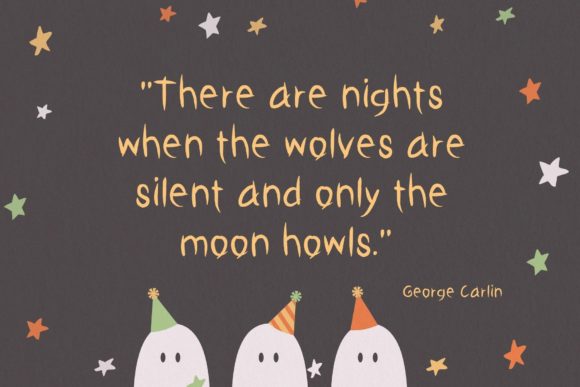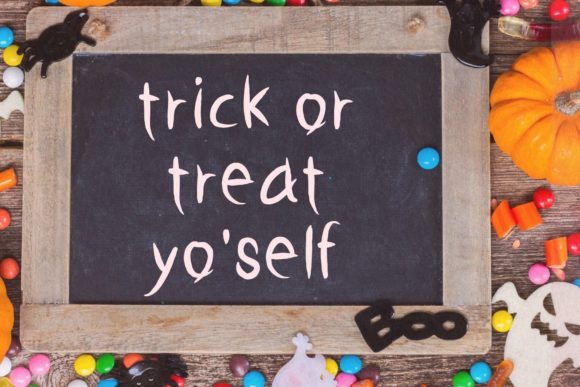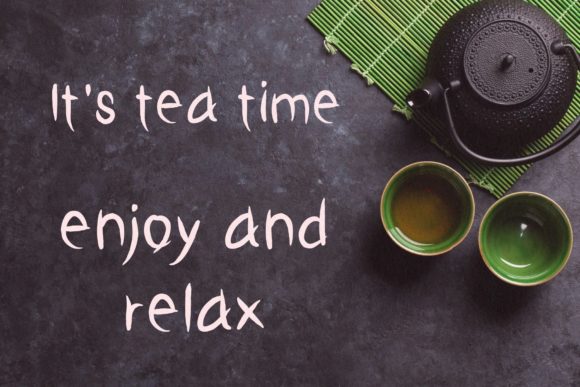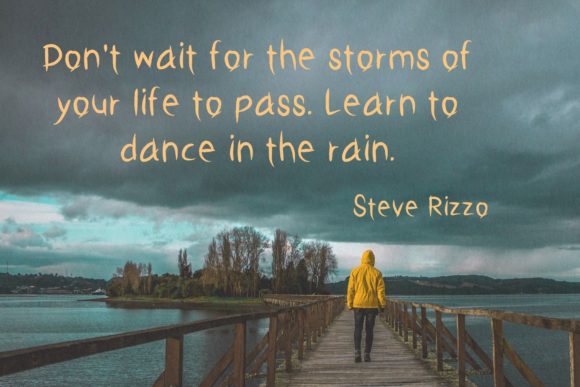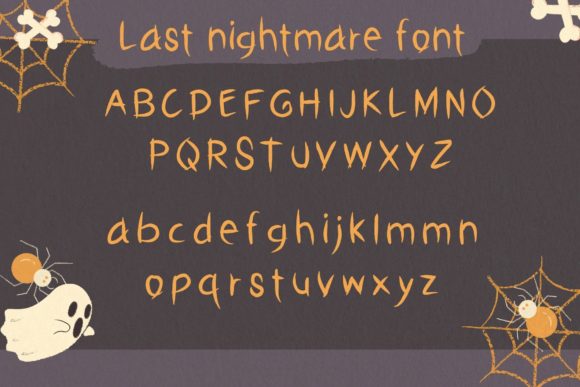
Last Nightmare Font
About Last Nightmare Font
Last Nightmare is a fun and spooky handwritten font. It will elevate a wide range of design projects to the highest level, be it branding, headings, cooking designs, invitations, logos, labels, Japanese design, and much more. Add this font to your favorite creative ideas and notice how it makes them come alive.